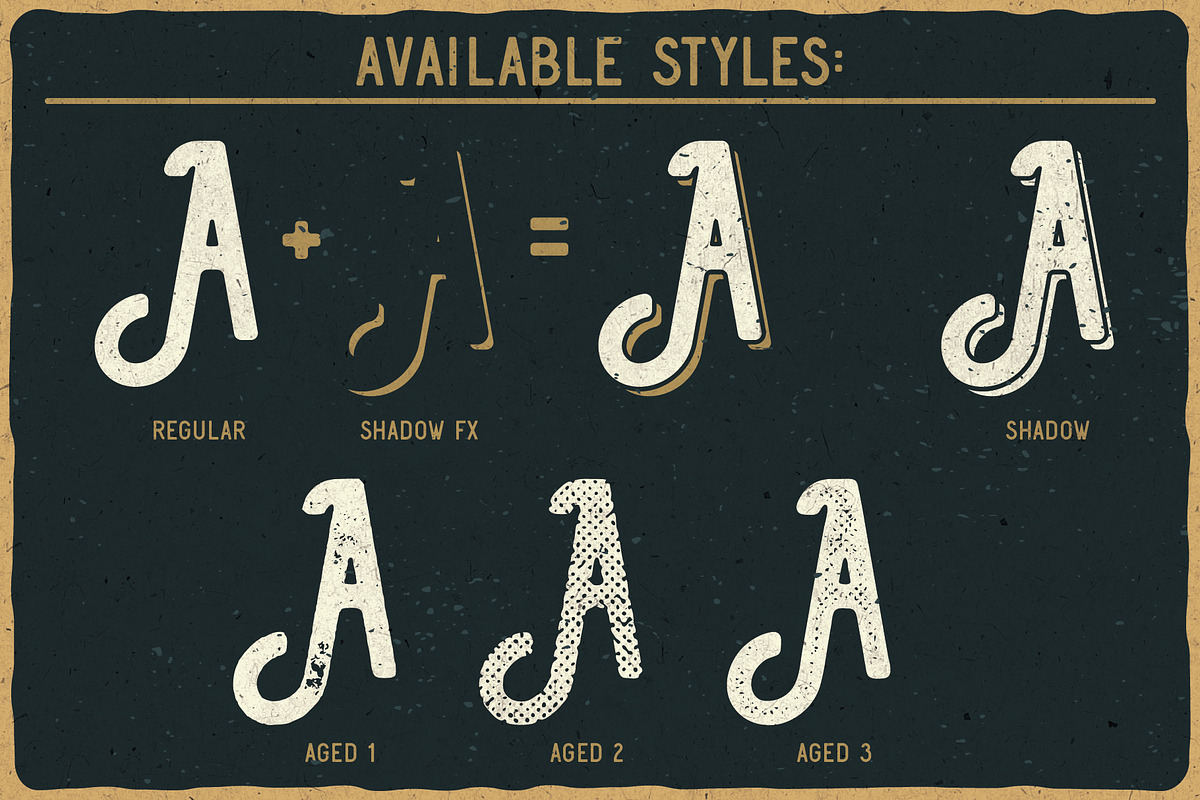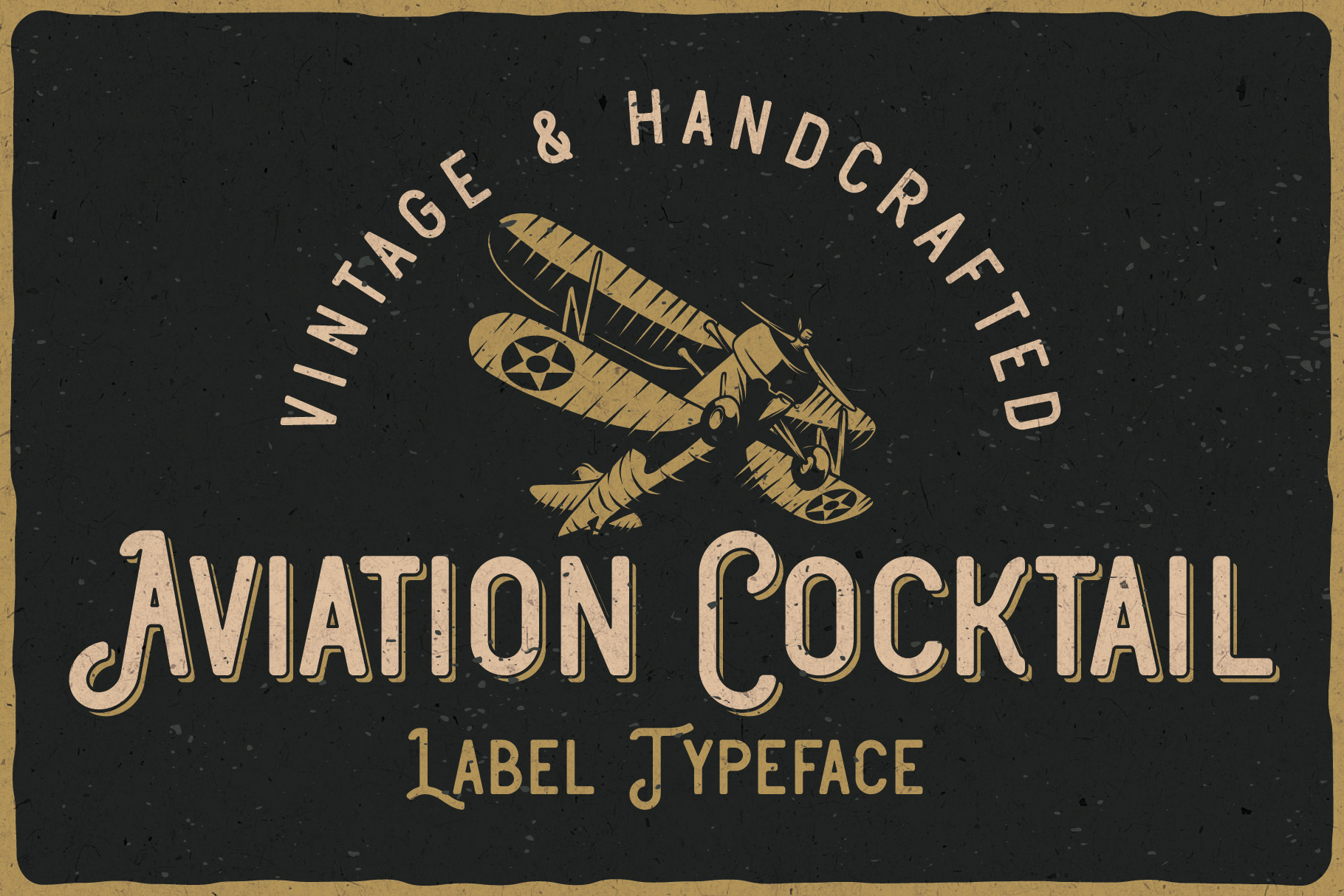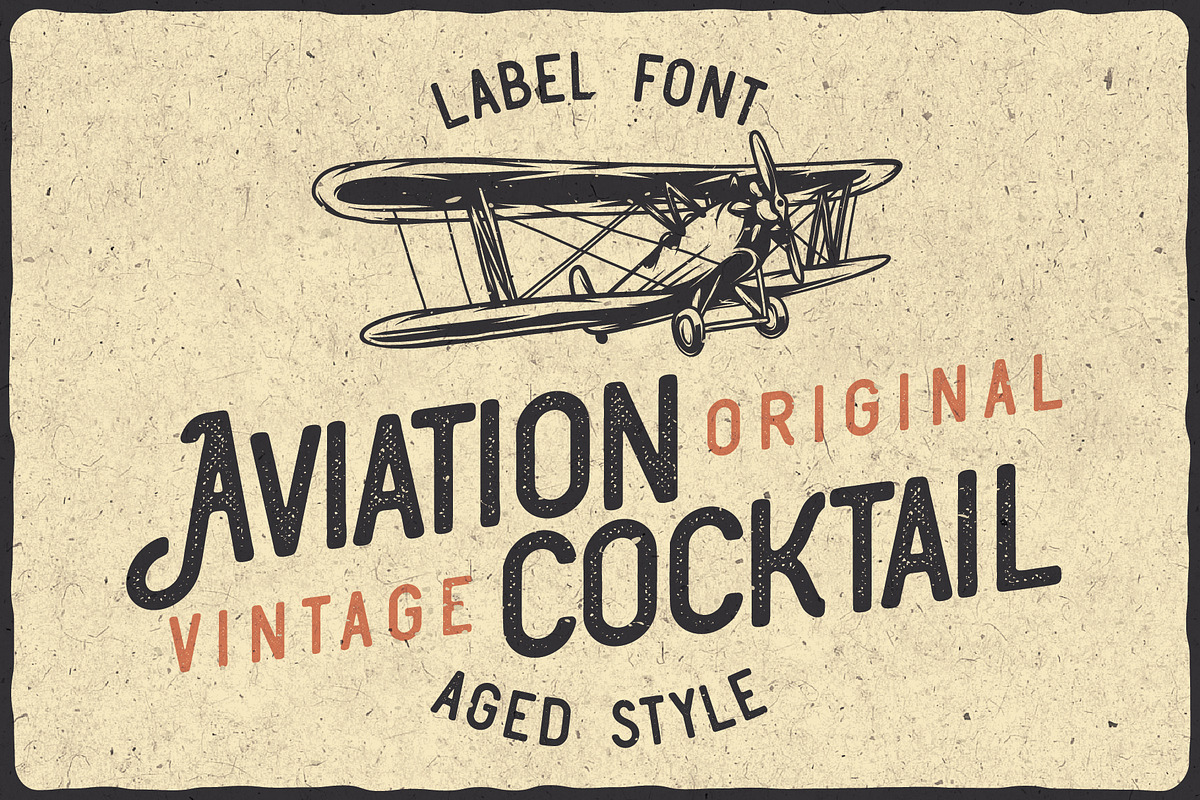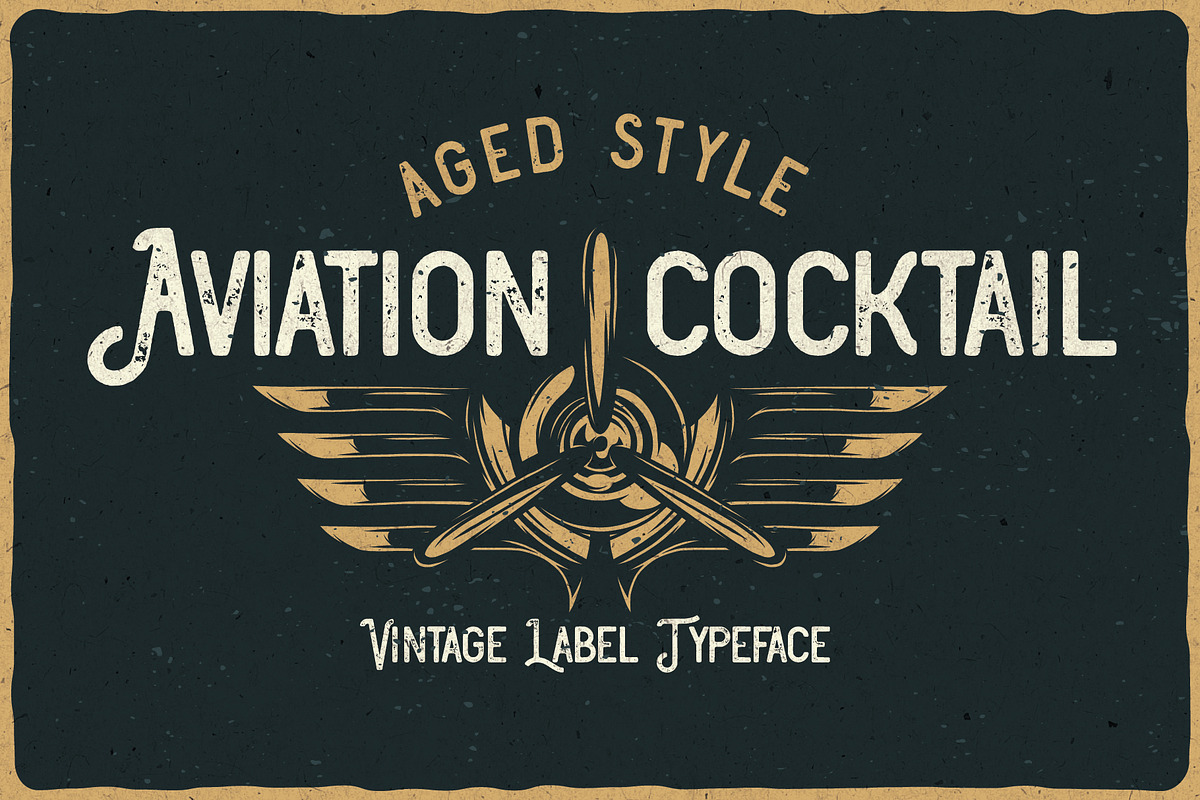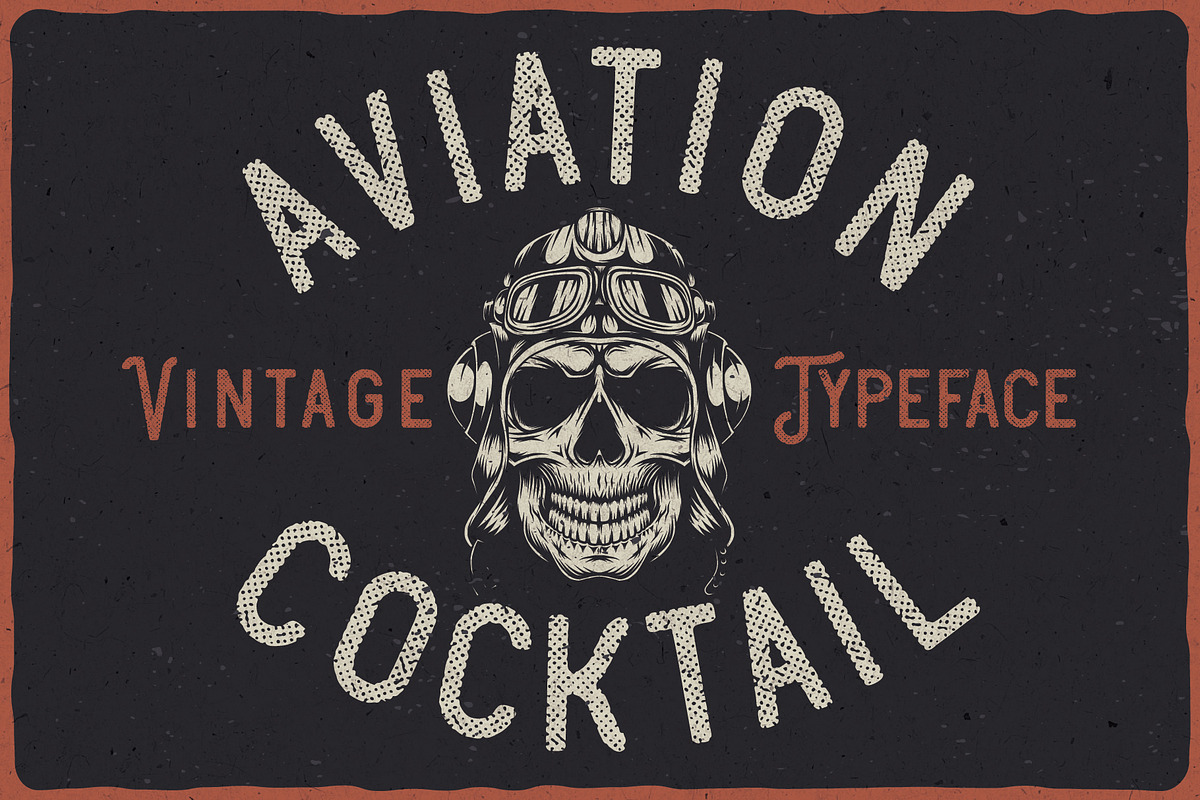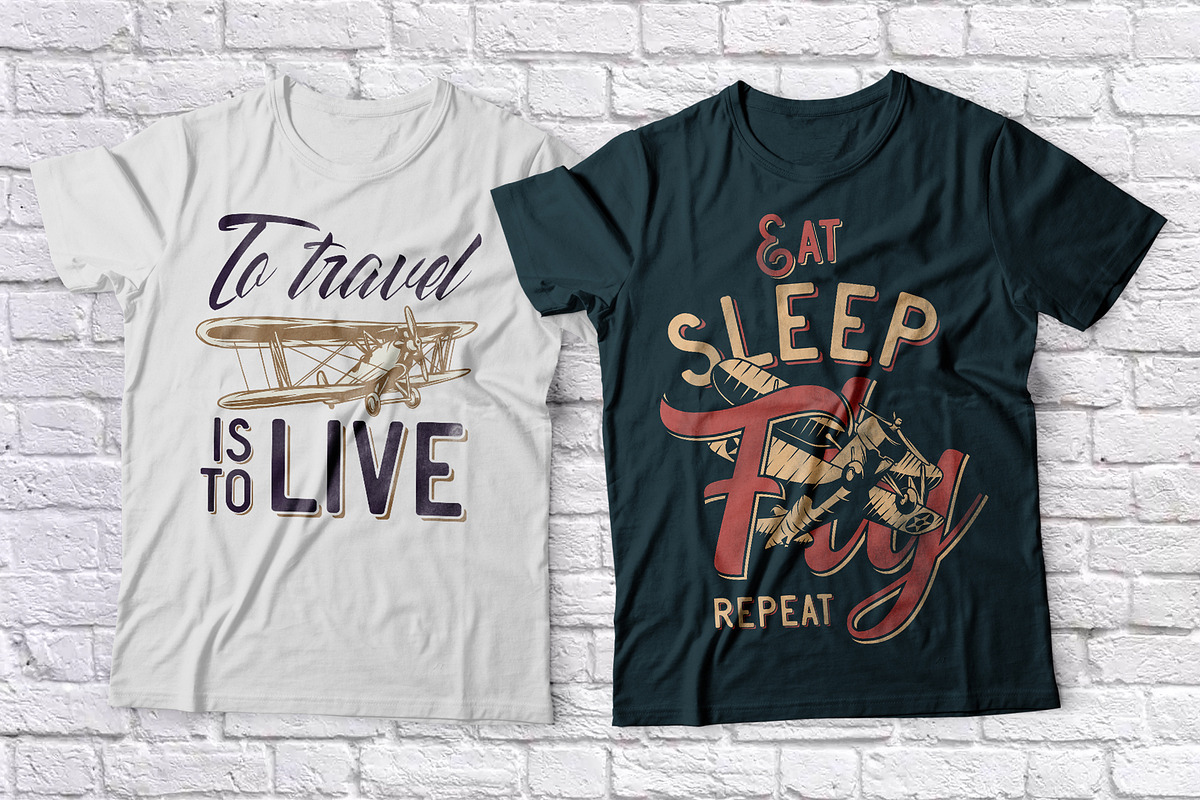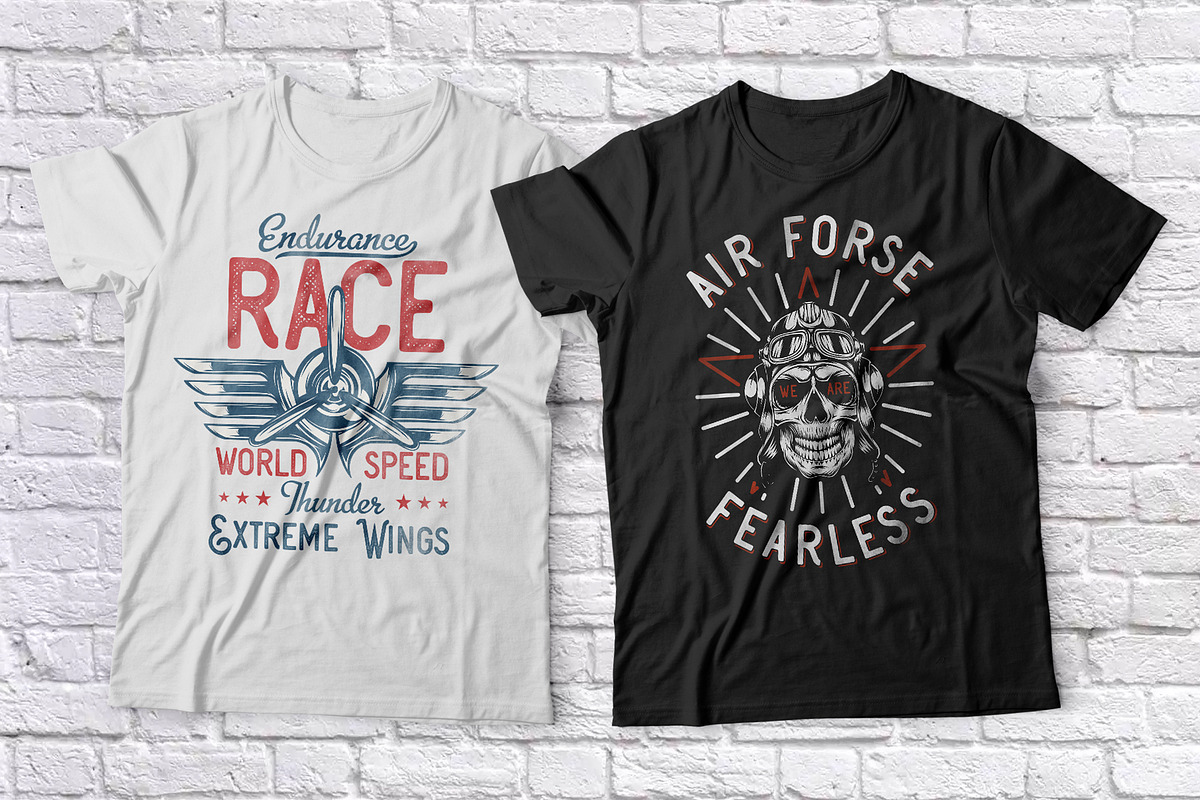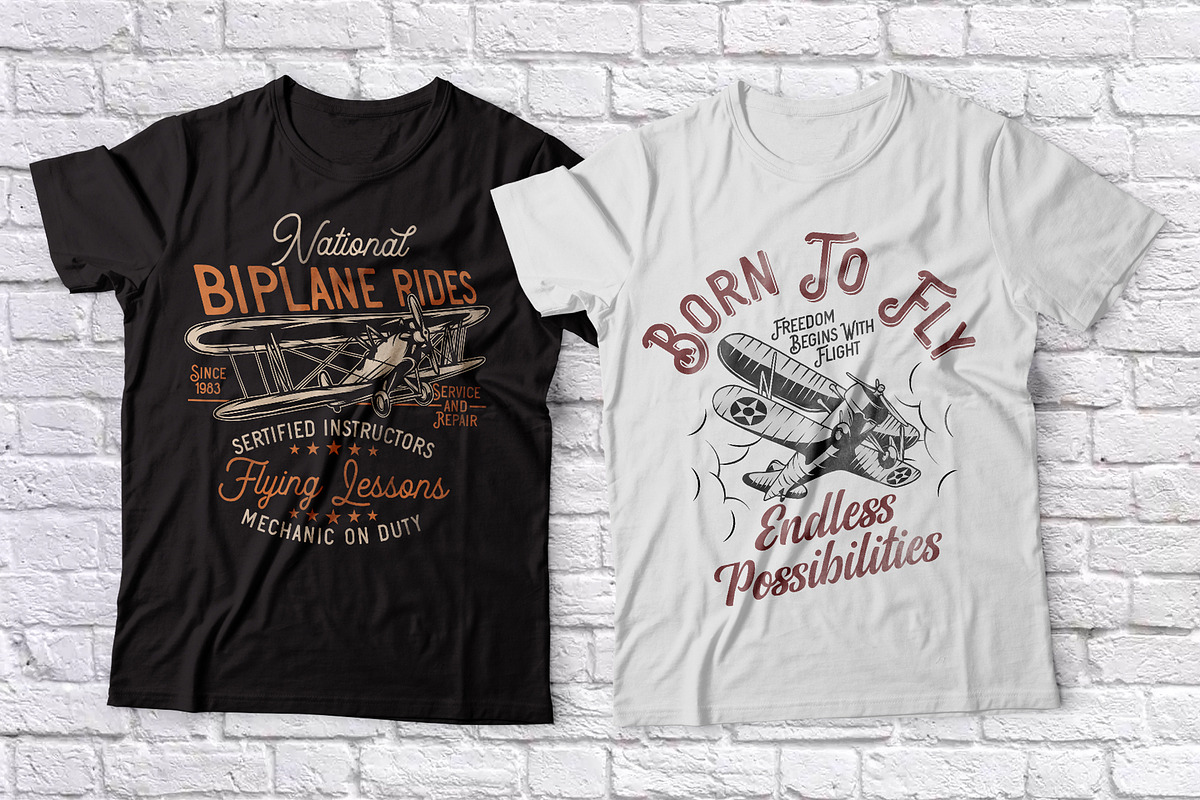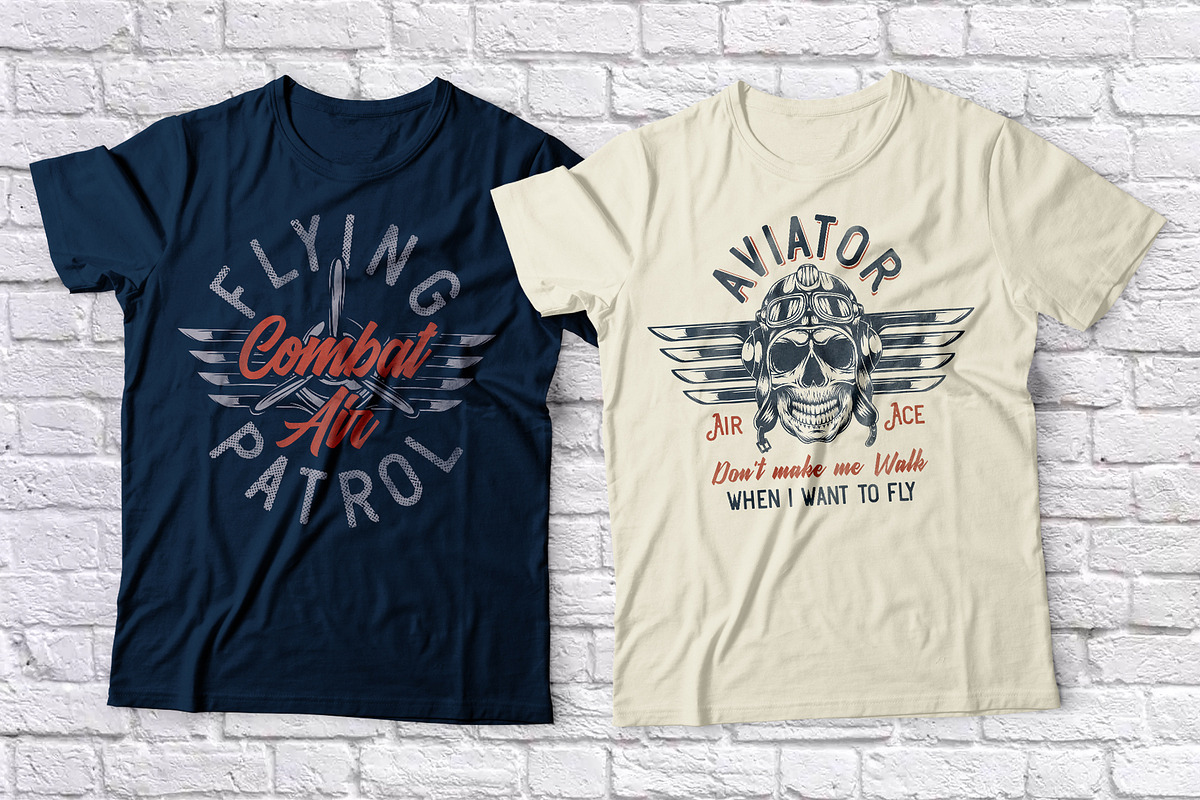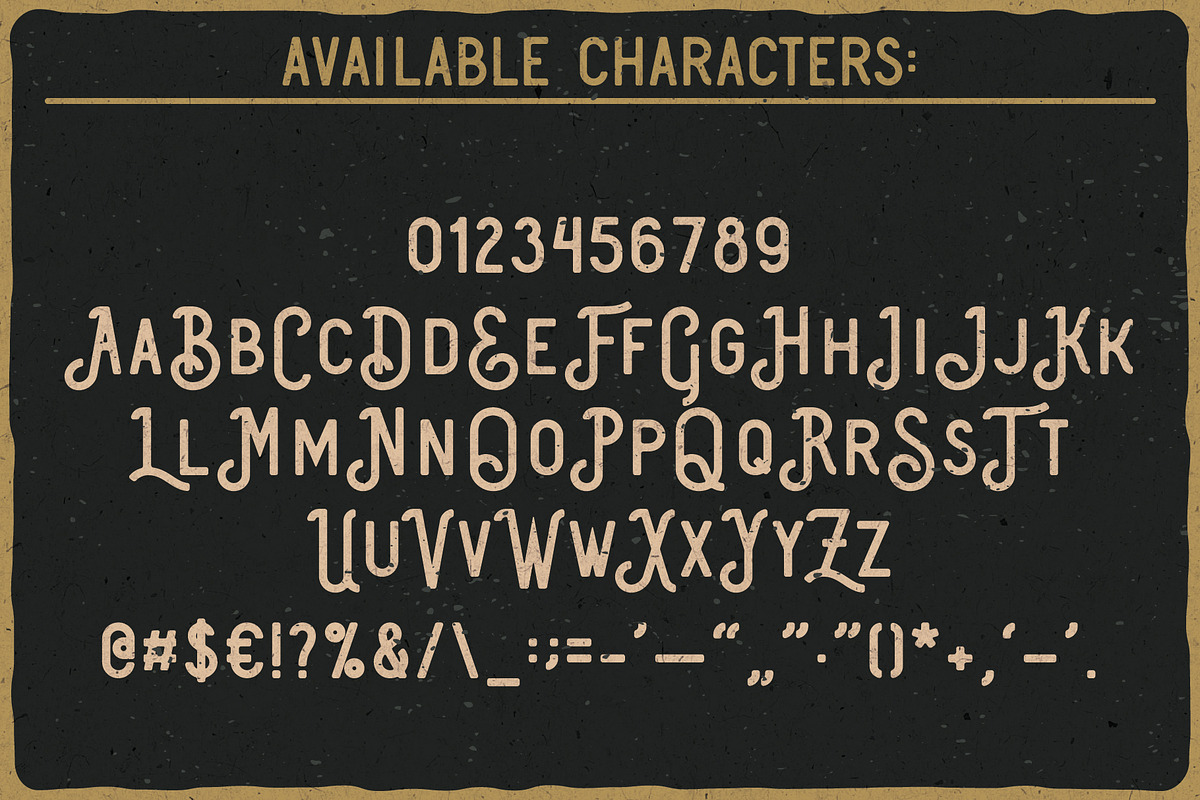
Aviation Cocktail Font + BONUS
Introducing a vintage look label font named "Aviation Cocktail". All available characters you can see at the screenshot. This font have 6 styles (including layered shadow effect style). This font will good viewed on any retro design like poster, t-shirt, label, logo etc.